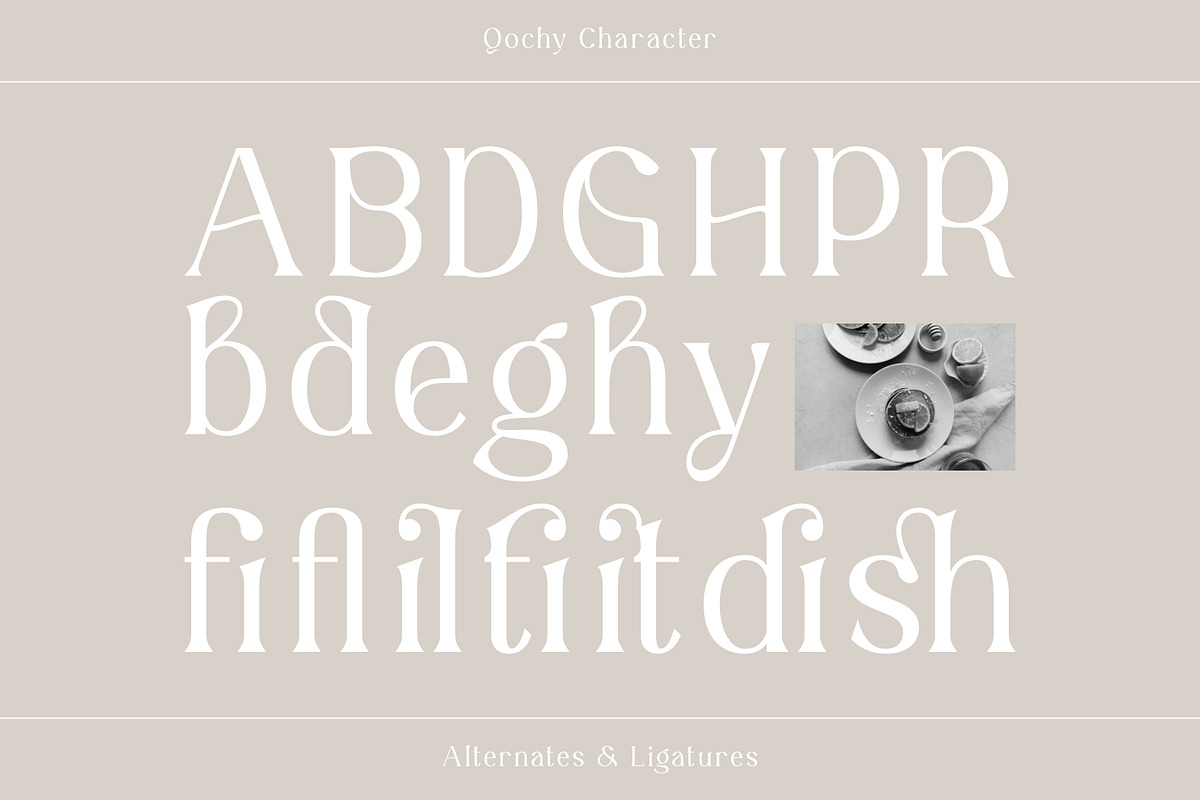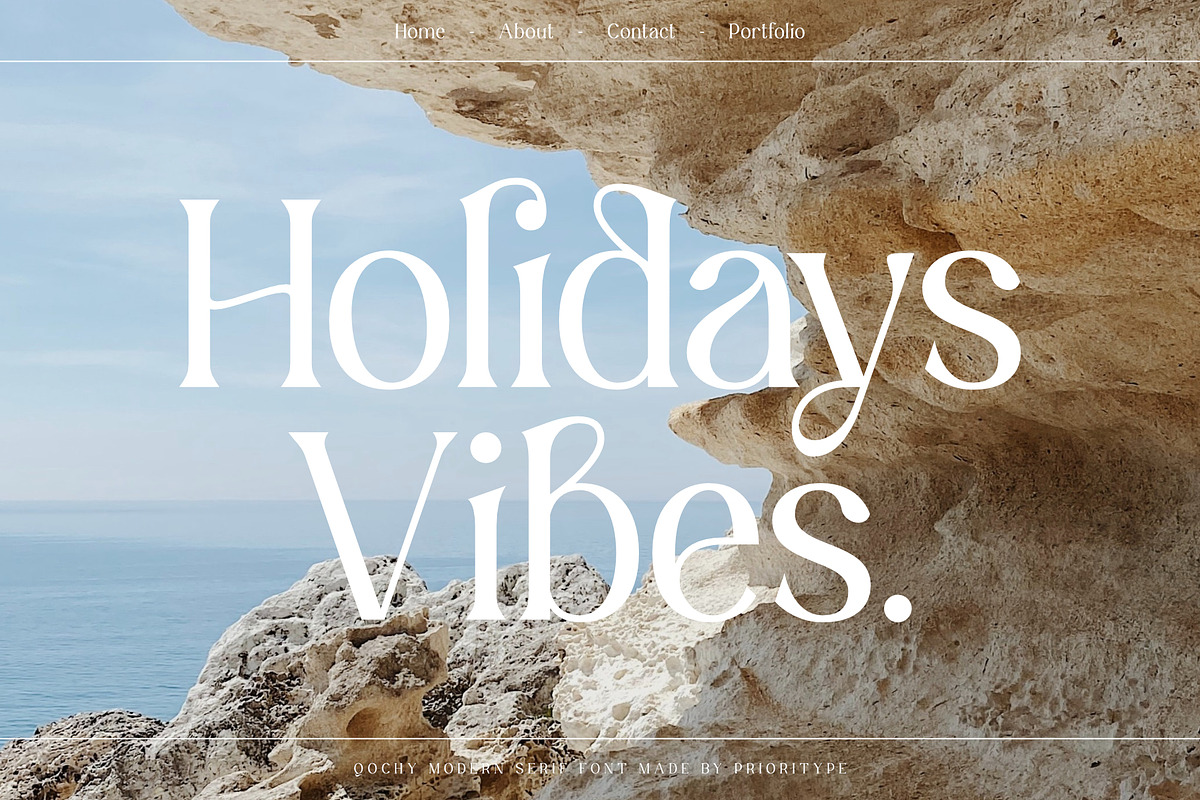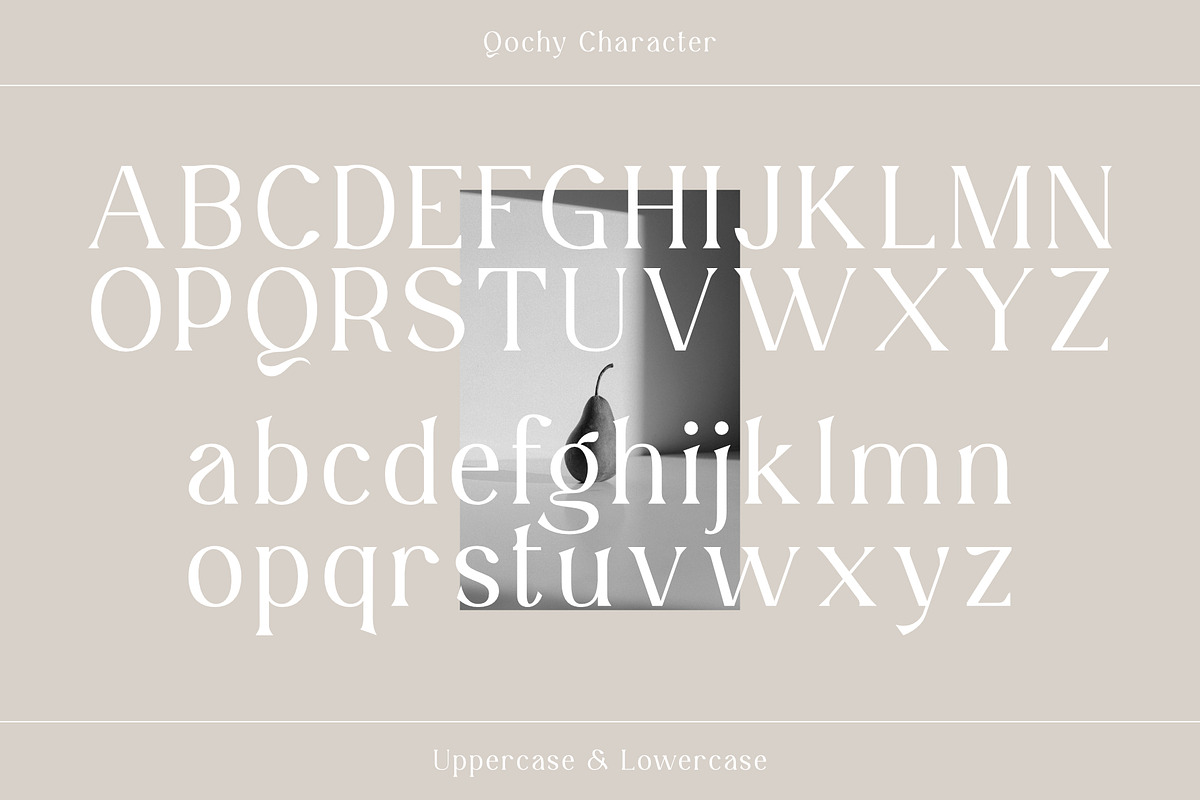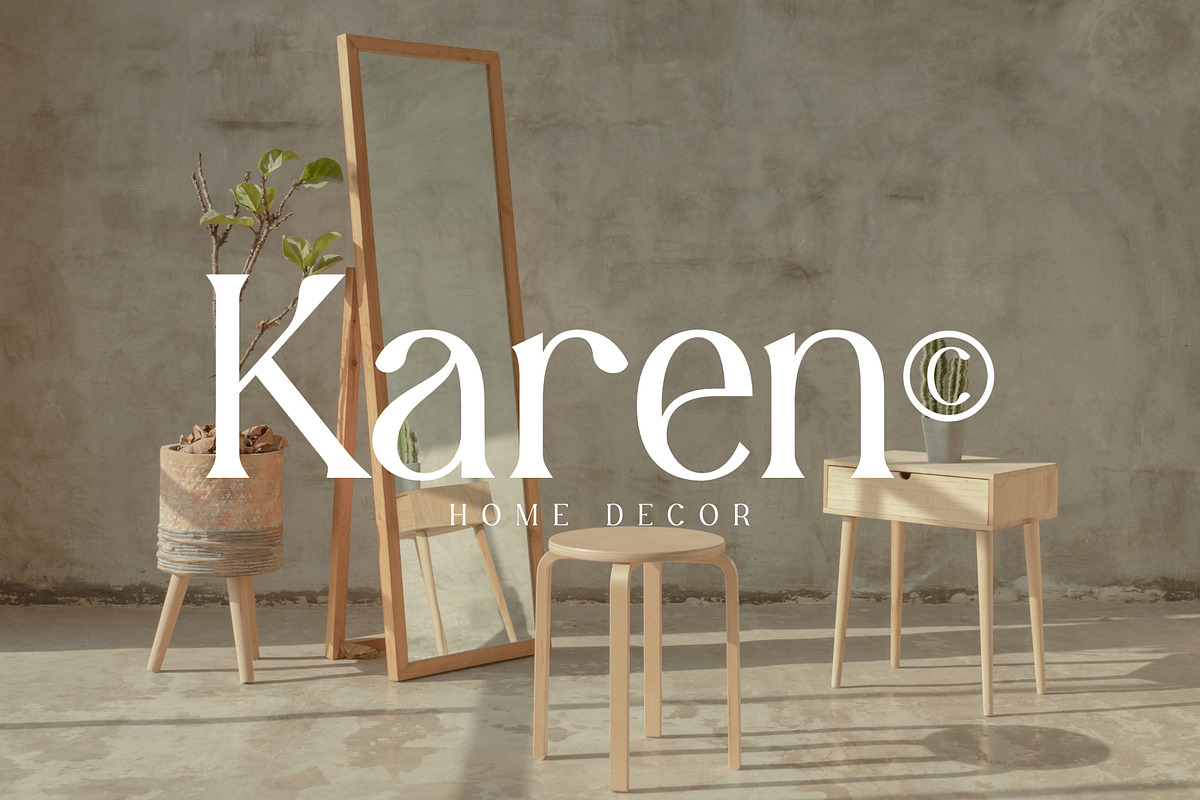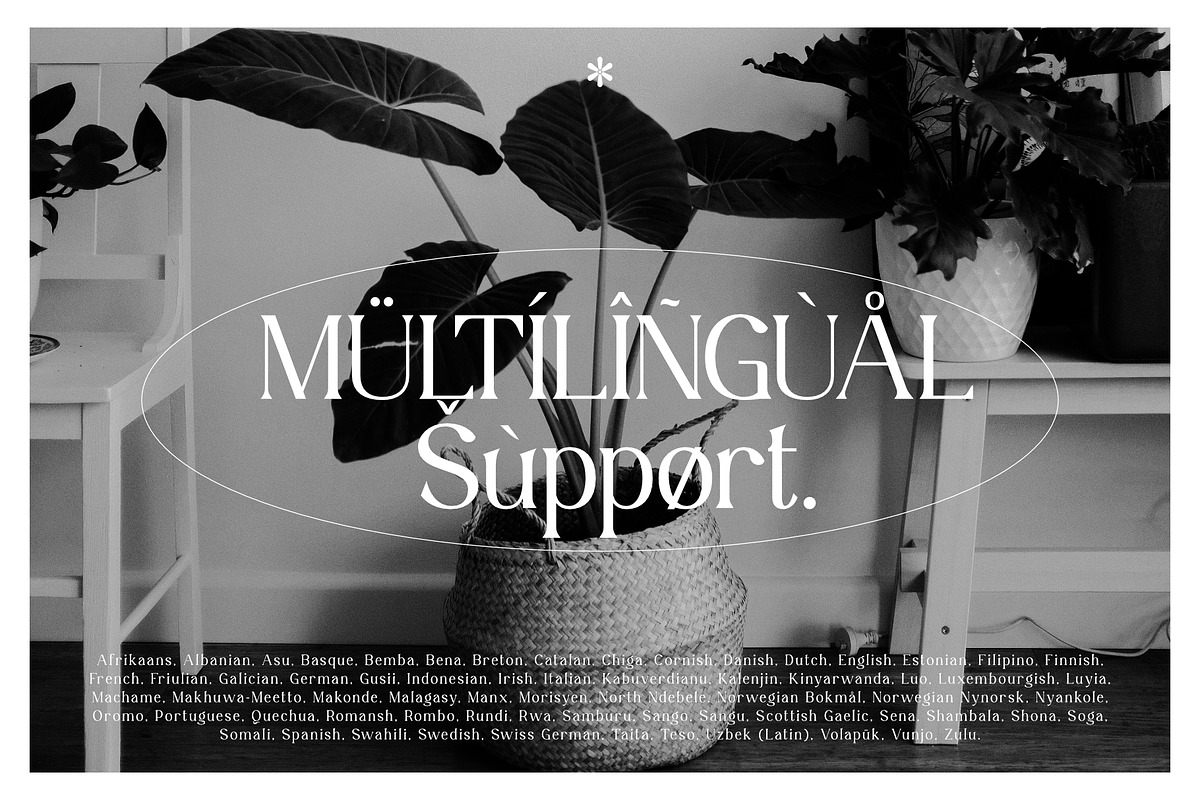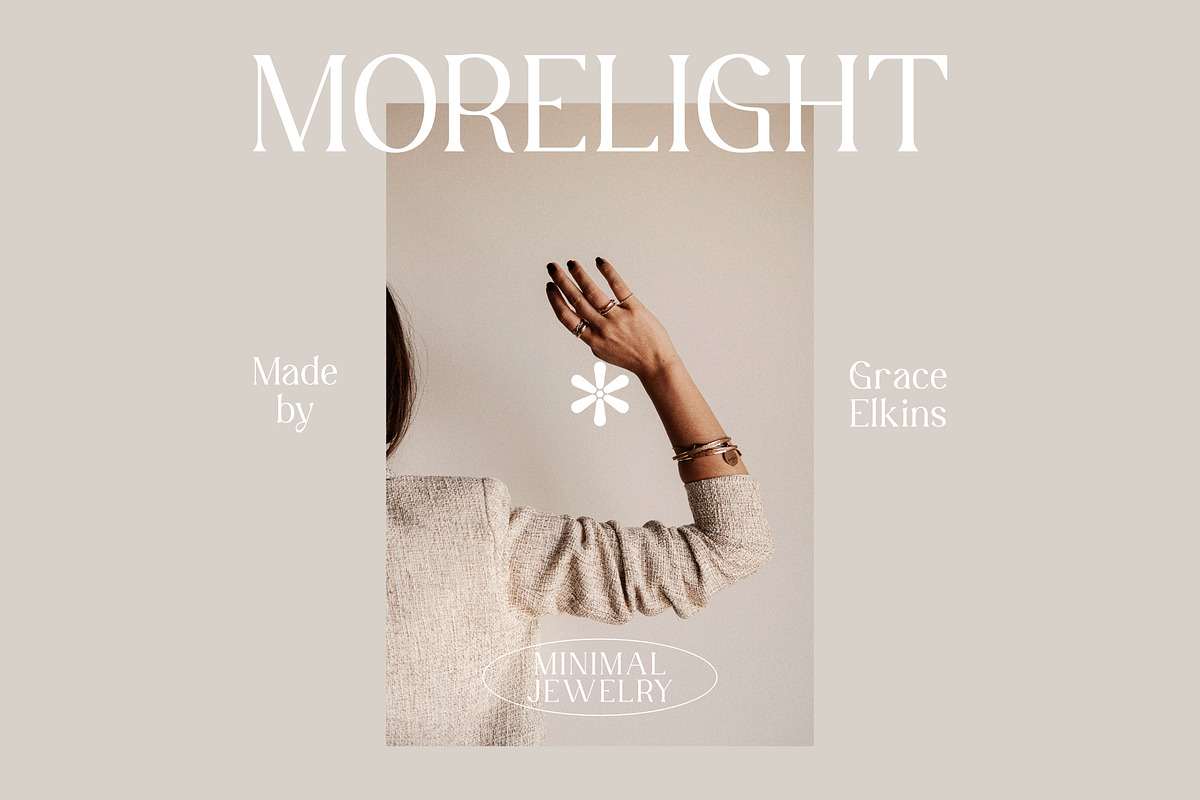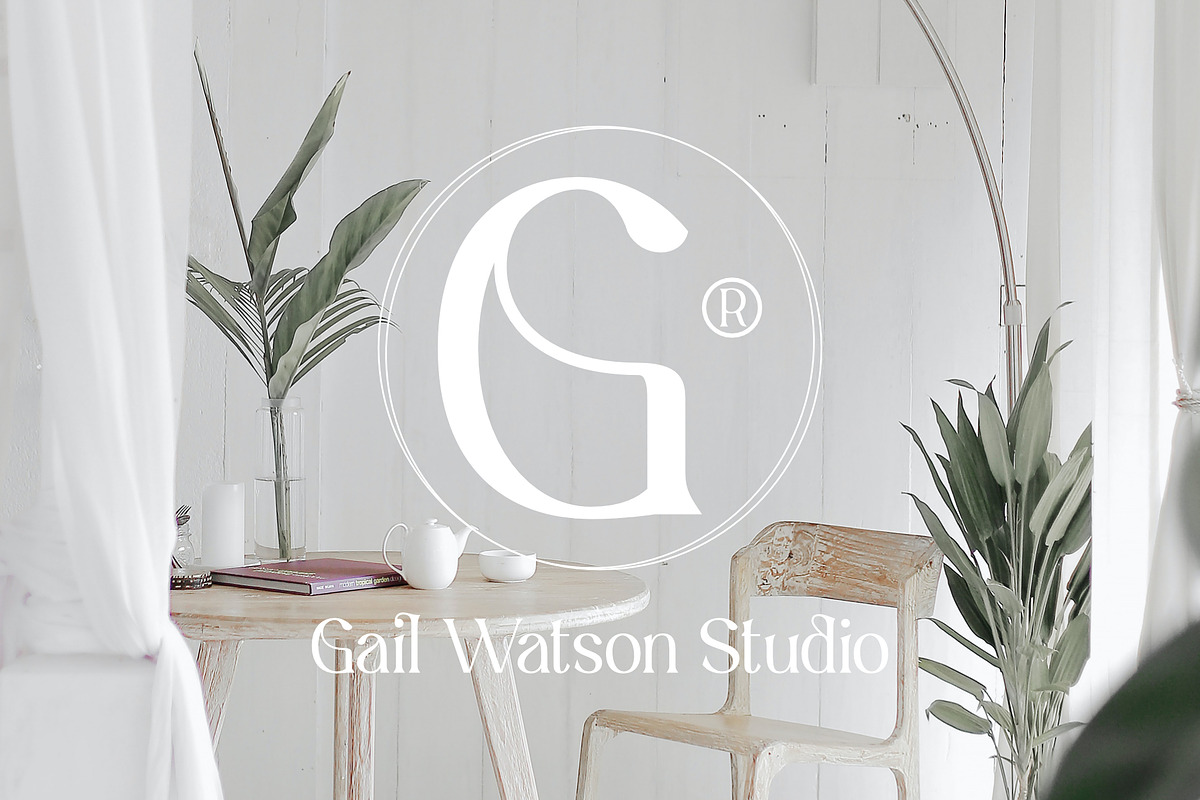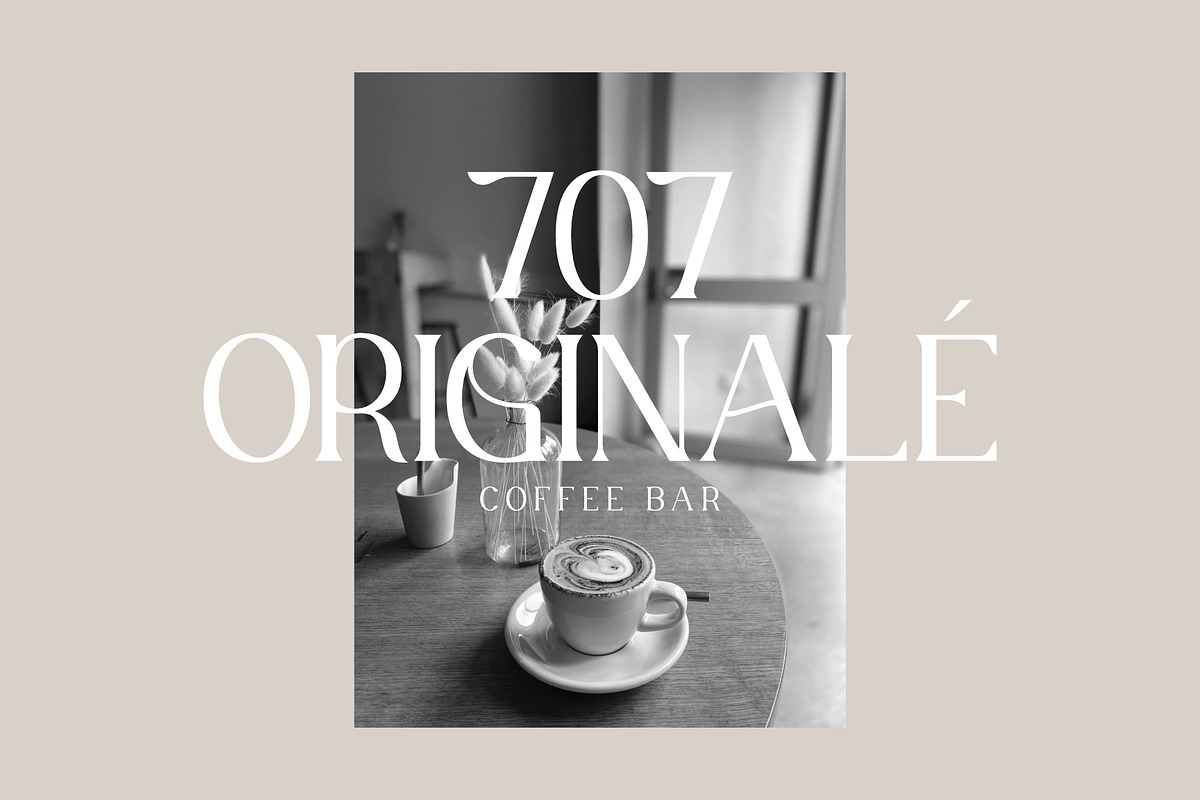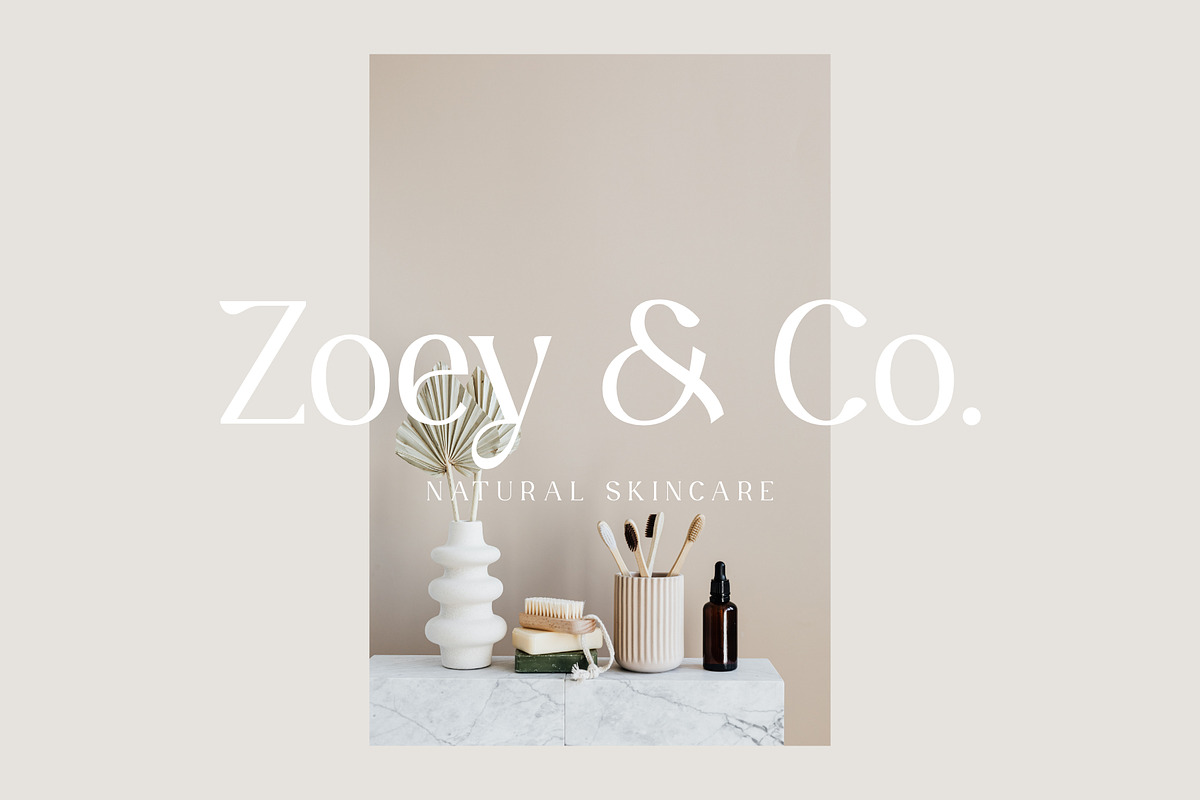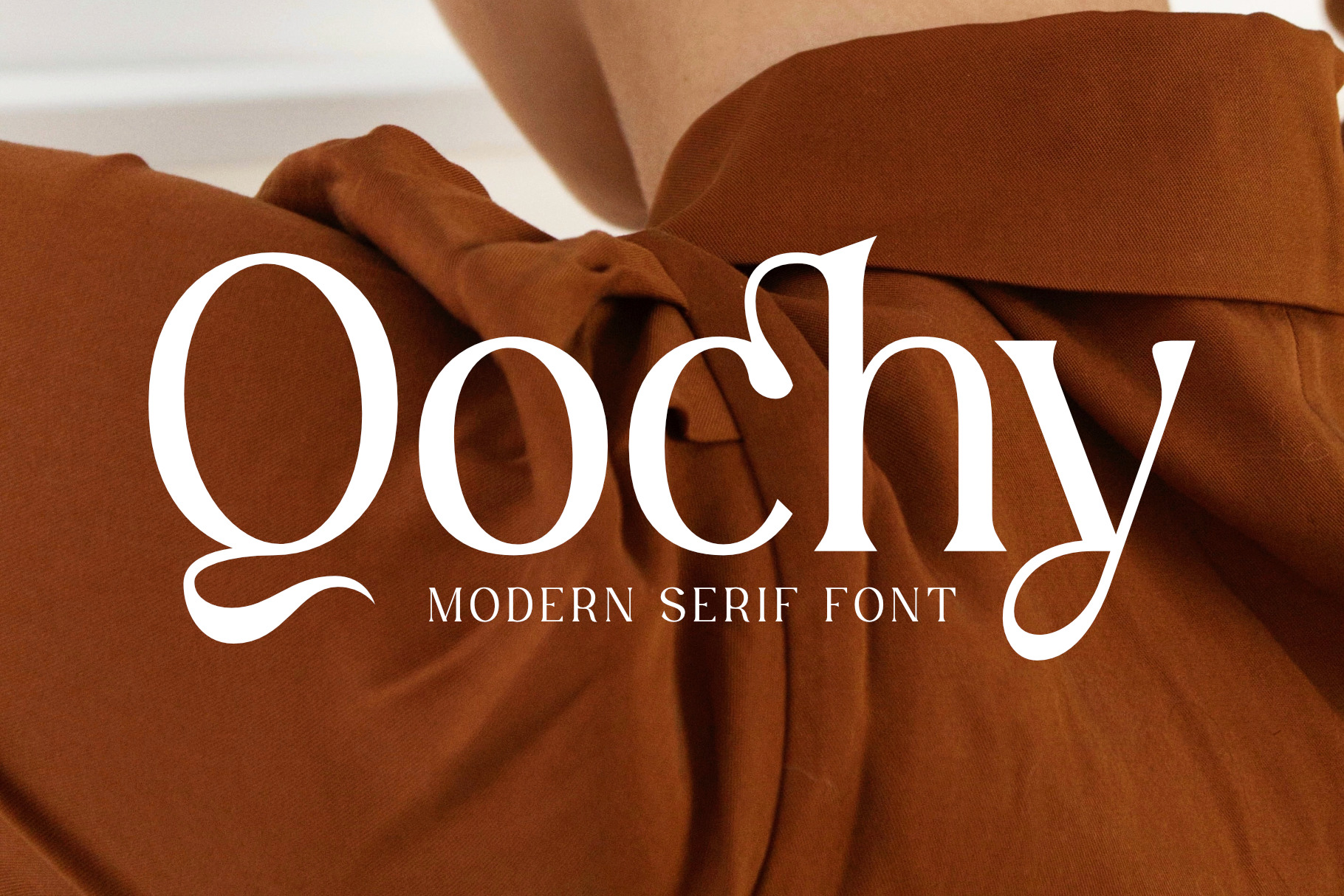
Qochy - Modern Serif Font
Beautiful and stylish fonts swiftly to help with your design projects. It is suitable for logo design, branding, magazine covers, landing pages, Instagram posts and so on.
- Features: Uppercase, Lowercase, Numeral, Punctuation, Multilingual, Alternates, Ligatures & PUA Encoded.
- Multilingual contained: Afrikaans, Albanian, Asu, Basque, Bemba, Bena, Breton, Catalan, Chiga, Cornish, Danish, Dutch, English, Estonian, Filipino, Finnish, French, Friulian, Galician, German, Gusii, Indonesian, Irish, Italian, Kabuverdianu, Kalenjin, Kinyarwanda, Luo, Luxembourgish, Luyia, Machame, Makhuwa-Meetto, Makonde, Malagasy, Manx, Morisyen, North Ndebele, Norwegian Bokmål, Norwegian Nynorsk, Nyankole, Oromo, Portuguese, Quechua, Romansh, Rombo, Rundi, Rwa, Samburu, Sango, Sangu, Scottish Gaelic, Sena, Shambala, Shona, Soga, Somali, Spanish, Swahili, Swedish, Swiss German, Taita, Teso, Uzbek (Latin), Volapük, Vunjo, Zulu.